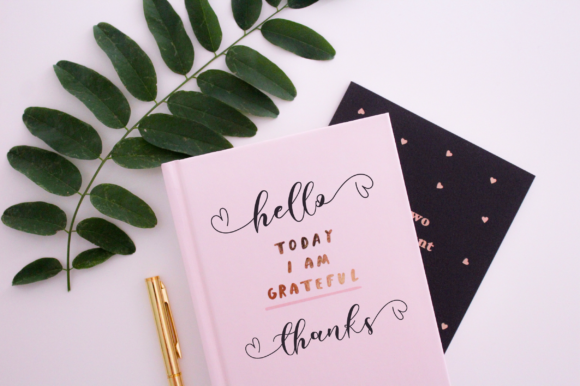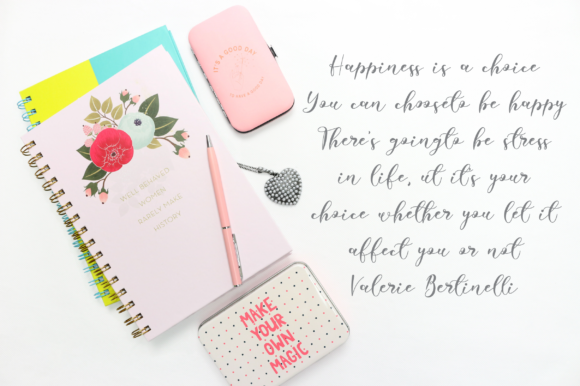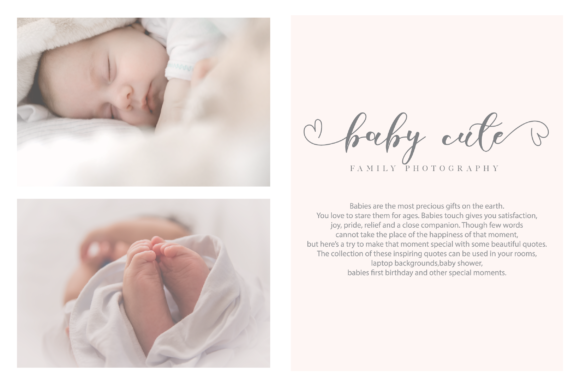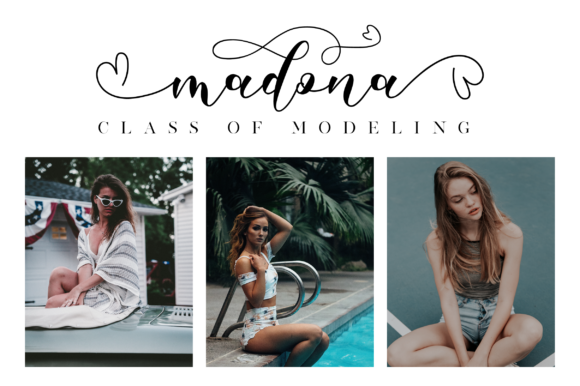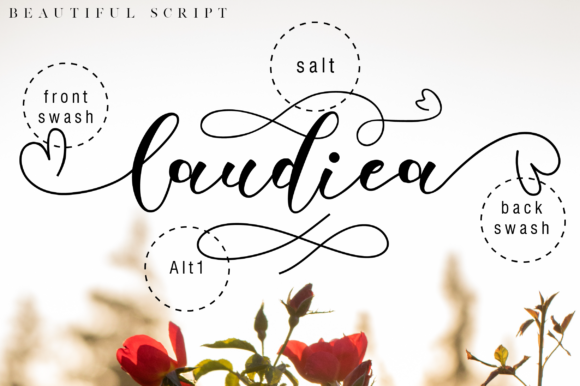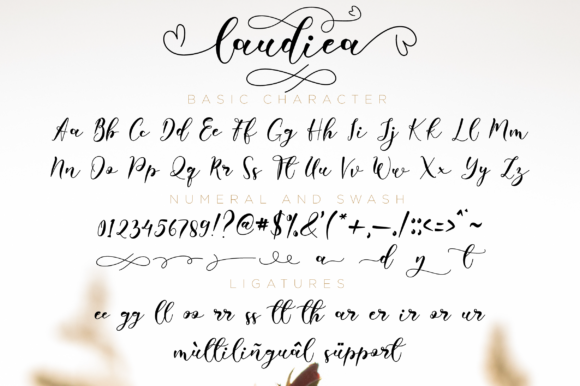
Introduction to Laudiea Script Font
Laudiea is a beautiful script font with a classy, elegant, and modern look.
It will add a handwritten touch to any design project .
Key Features of Laudiea Script Font
Why Choose Laudiea Script Font?
Laudiea Script Font offers exceptional quality and versatility, making it a valuable addition to your design toolkit. Whether you’re creating for personal projects or commercial use, Laudiea Script Font delivers professional results.